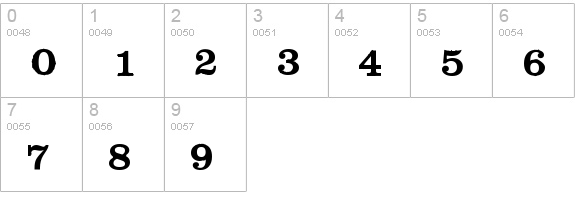
Black Widow is a maximum-weight, dramatic variant in the Black typeface family \xE2\x80\x94 well suited to maximum-impact headlines, posters, and packaging.
Black Widow font is a sleek and modern typeface that exudes elegance and sophistication. With its sharp edges and bold strokes, this font is perfect for creating striking headlines, logos, and brand identities. The Black Widow font is versatile and can be used for a wide range of design projects, from print materials to digital designs. Best of all, Black Widow font is available for free download at FontsMarket.com. This means that you can easily access this stunning font and incorporate it into your projects without any cost. Don't miss out on this amazing opportunity to enhance your designs with the Black Widow font - download it today and let your creativity shine!